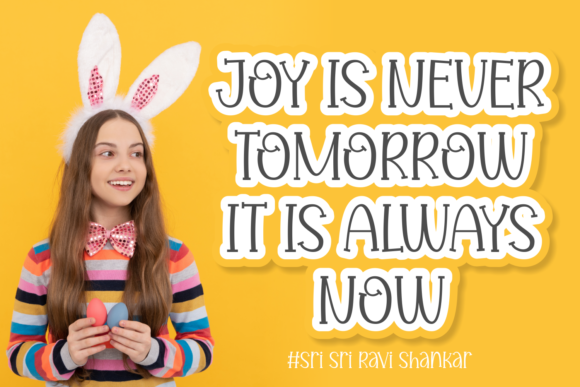
Introduction to Hey Emma Font
Have you ever stumbled upon a font that instantly sparks a creative idea? For designers, this is a moment of pure magic. I still remember the time I discovered the Hey Emma Font, and it changed the way I approached my design projects. The moment I saw its quirky and modern serif style, I knew I had to incorporate it into my next creative project.
The Hey Emma Font is a treasure trove of inspiration for designers looking for a unique and eye-catching design resource. With its tall and thin characters, this font is perfect for a wide range of applications, from posters and quotes to kids’ clothing designs and t-shirts. And the best part? It’s available for free download, making it a valuable asset for any creative project.
With its high-quality design and transparent background, the Hey Emma Font is an excellent choice for designers who want to elevate their work to the next level. Whether you’re working on a personal or professional project, this font is sure to bring a touch of creativity and whimsy to your designs.
Key Features of Hey Emma Font
- Unique Hand-Drawn Style: Hey Emma Font features a distinctive hand-drawn style that adds a touch of personality to any creative project.
- High-Quality Design: This font is designed with high-quality in mind, making it perfect for use in a variety of design applications.
- Transparent Background: The font has a transparent background, allowing designers to easily layer it over other design elements.
- Perfect for Design Resource: Hey Emma Font is a great addition to any designer’s toolkit, offering a unique and versatile design element for creative projects.
Honest Review: Hey Emma Font
Hey Emma Font has been a game-changer for my recent creative project. I was looking for a high-quality font that would perfectly complement my design, and I’m glad I stumbled upon this design resource.
- ✨ The font is highly legible and comes in a variety of styles, making it perfect for a wide range of creative projects.
- ✨ The transparent background option provides flexibility in terms of design placement and composition.
- ⚠️ The font may not be suitable for all design styles or themes, particularly those that require a more bold or edgy aesthetic.
Overall, I’m thoroughly impressed with the Hey Emma Font. Its high quality and versatility make it an excellent addition to any design resource library. I’d definitely recommend it to fellow designers and creatives looking for a reliable and stylish font option.
Tips and Use Cases
Hey Emma Font is ideal for creative projects that require a playful and elegant touch. Use it for invitations, social media graphics, or any design that needs a high-quality, modern font. Remember to use the font in conjunction with other design elements to achieve a balanced and visually appealing result.